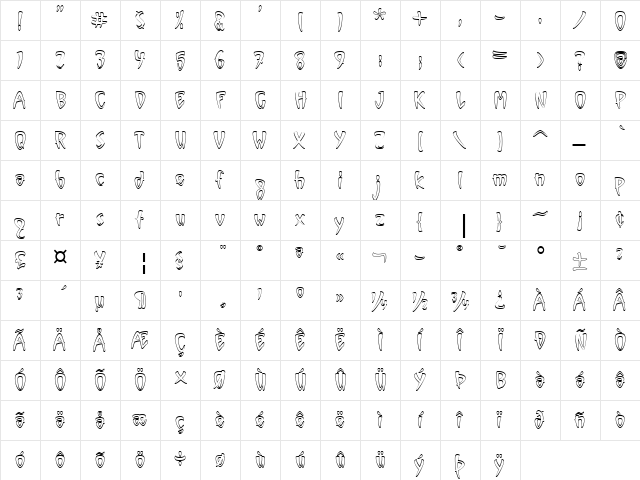
VinylOutline ITC Bold
Design Context for VinylOutline ITC Typeface
VinylOutline ITC brings ornamental detail and strong personality to headlines and identities, where visual impact matters more than quiet functionality. Its bold stroke weight gives it real presence on the page.
Font Pairing: Pair with a clean neutral sans-serif for body copy to let VinylOutline ITC's character lead without overwhelming the composition.
Pro Tip: Treat VinylOutline ITC as the centrepiece of your typographic hierarchy. One strong heading set in a decorative face can carry an entire layout.